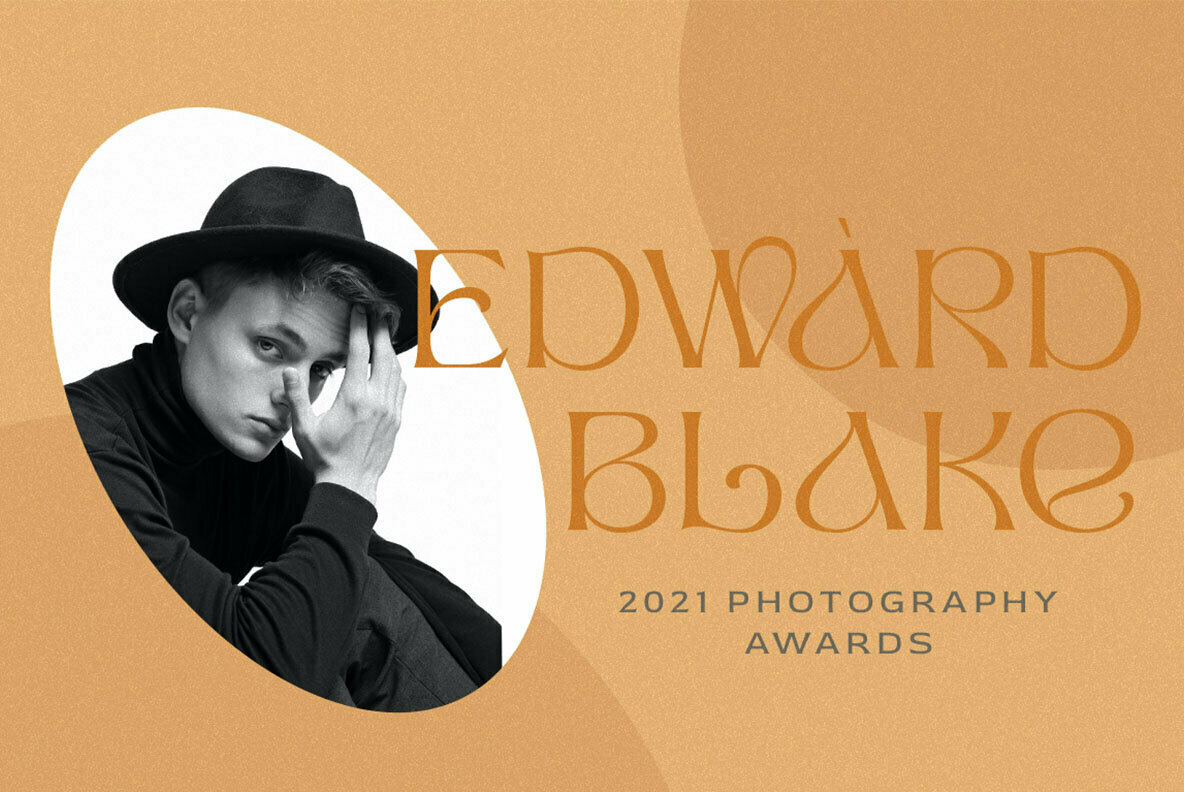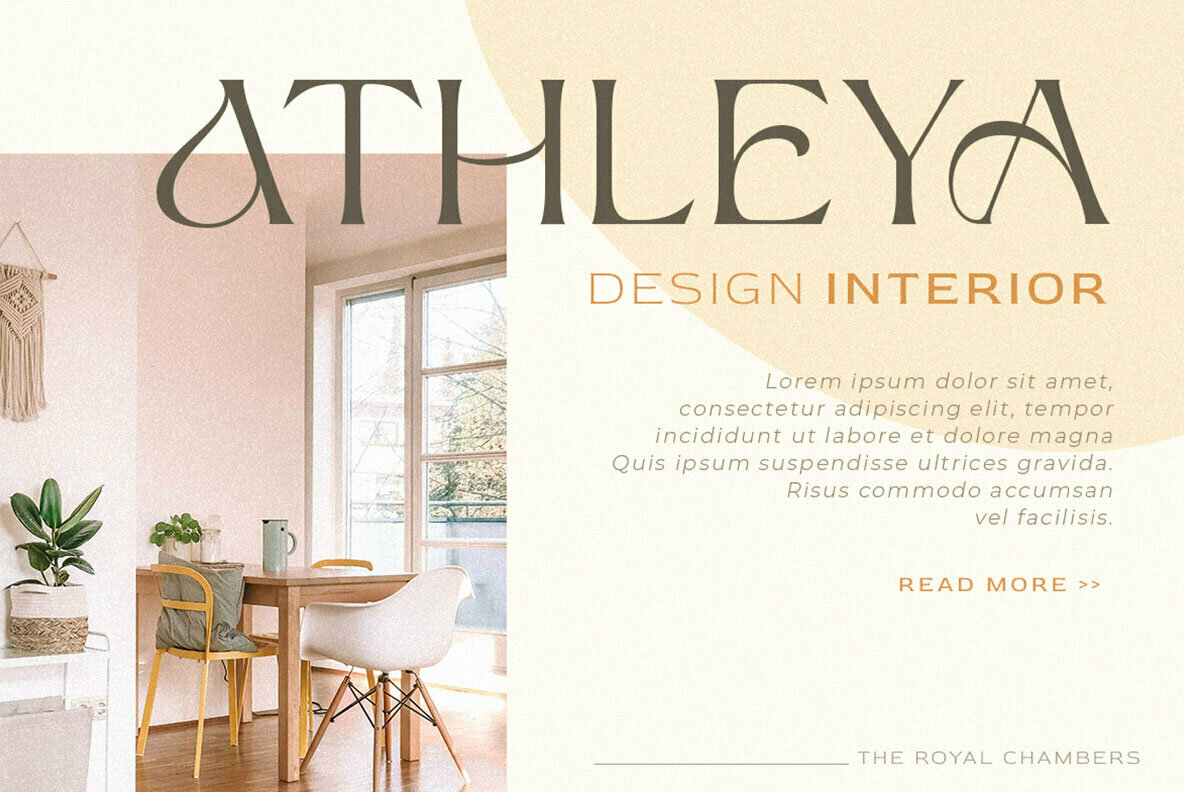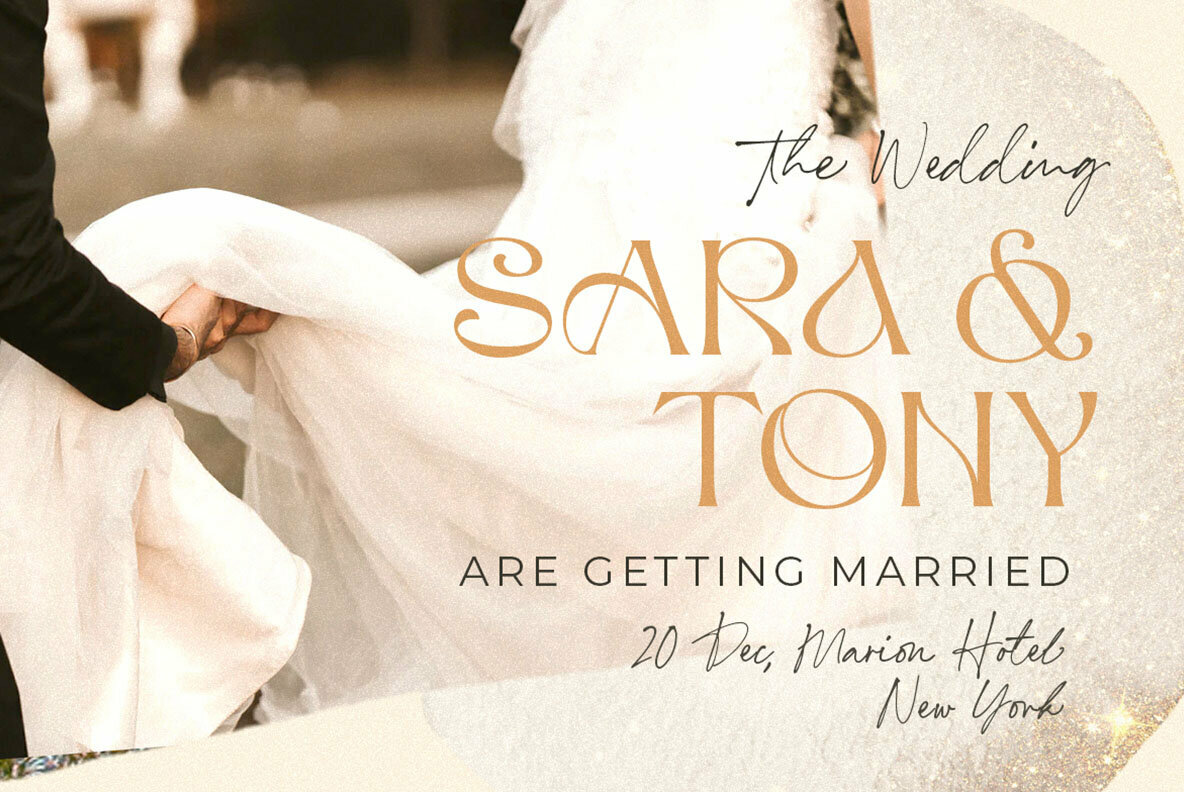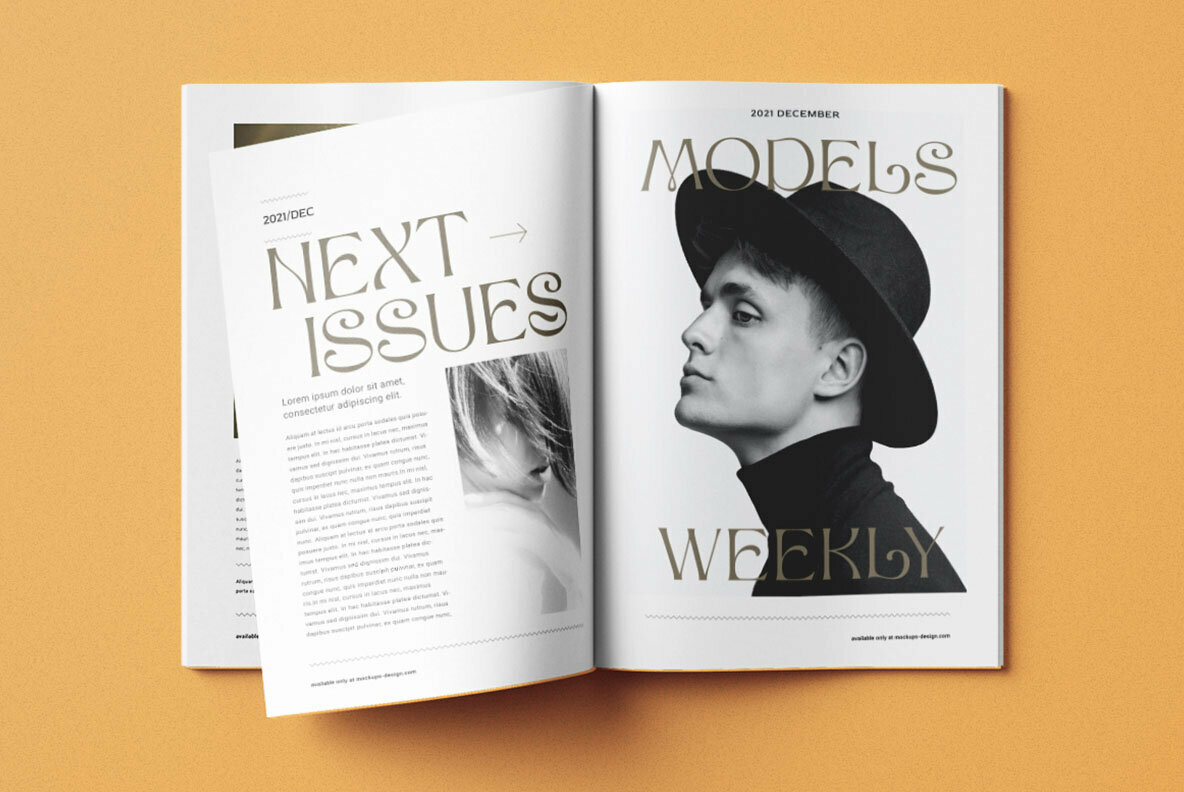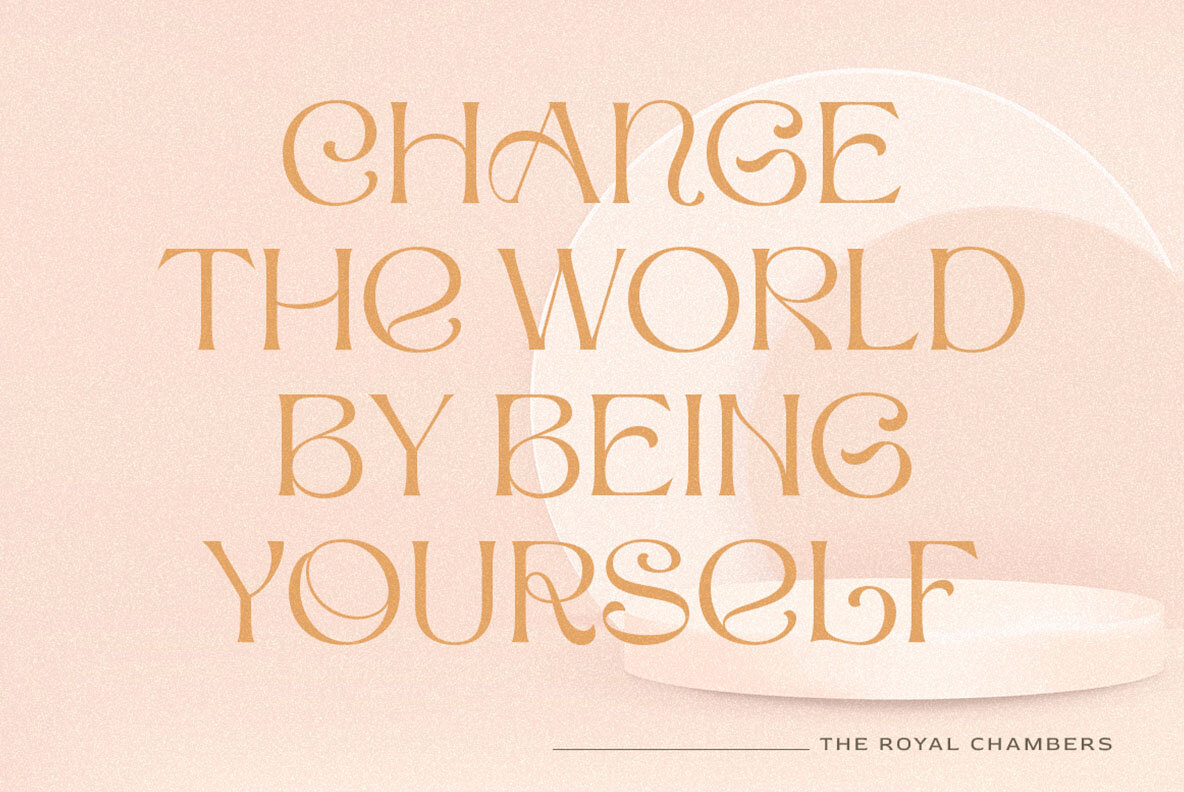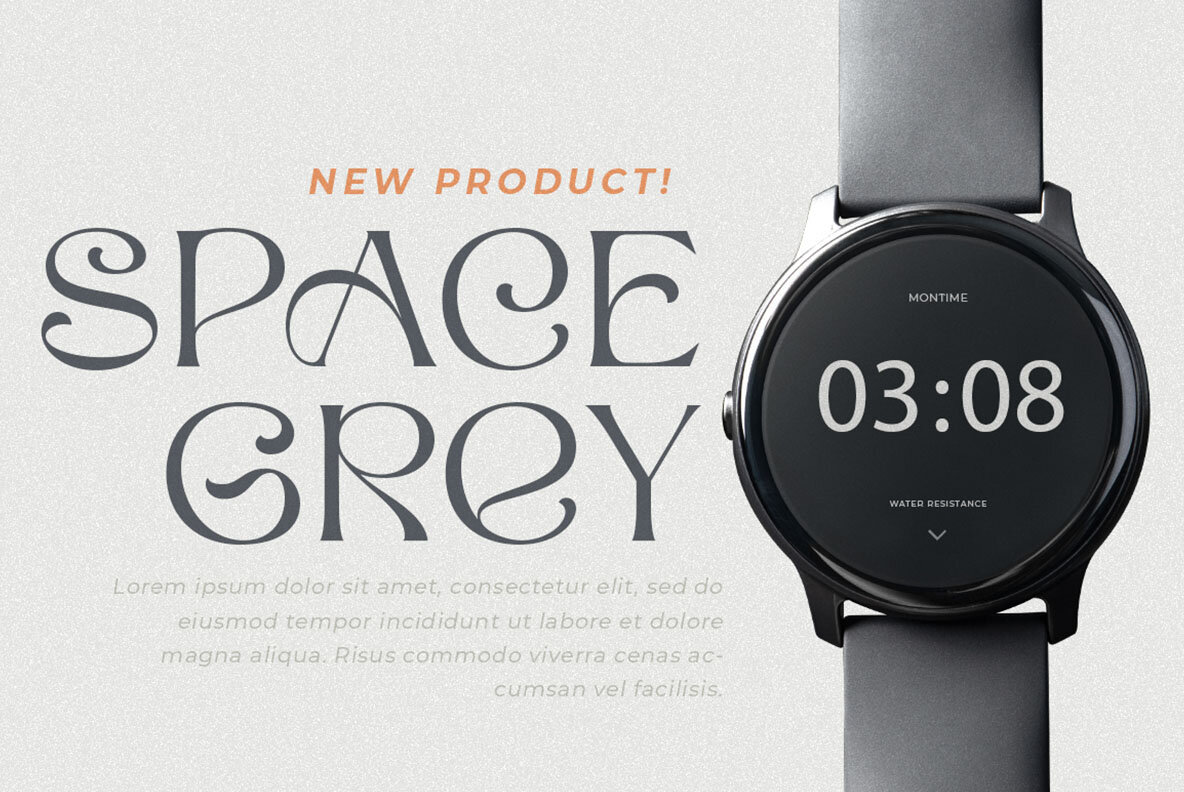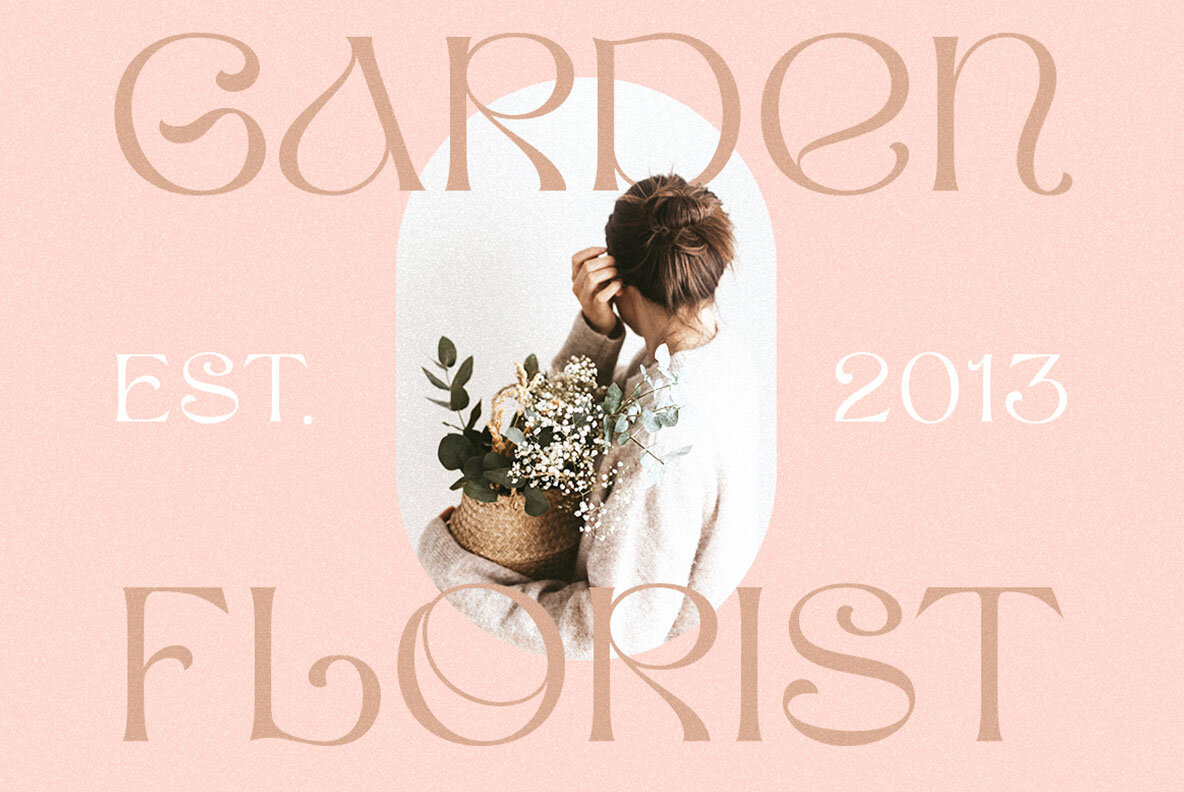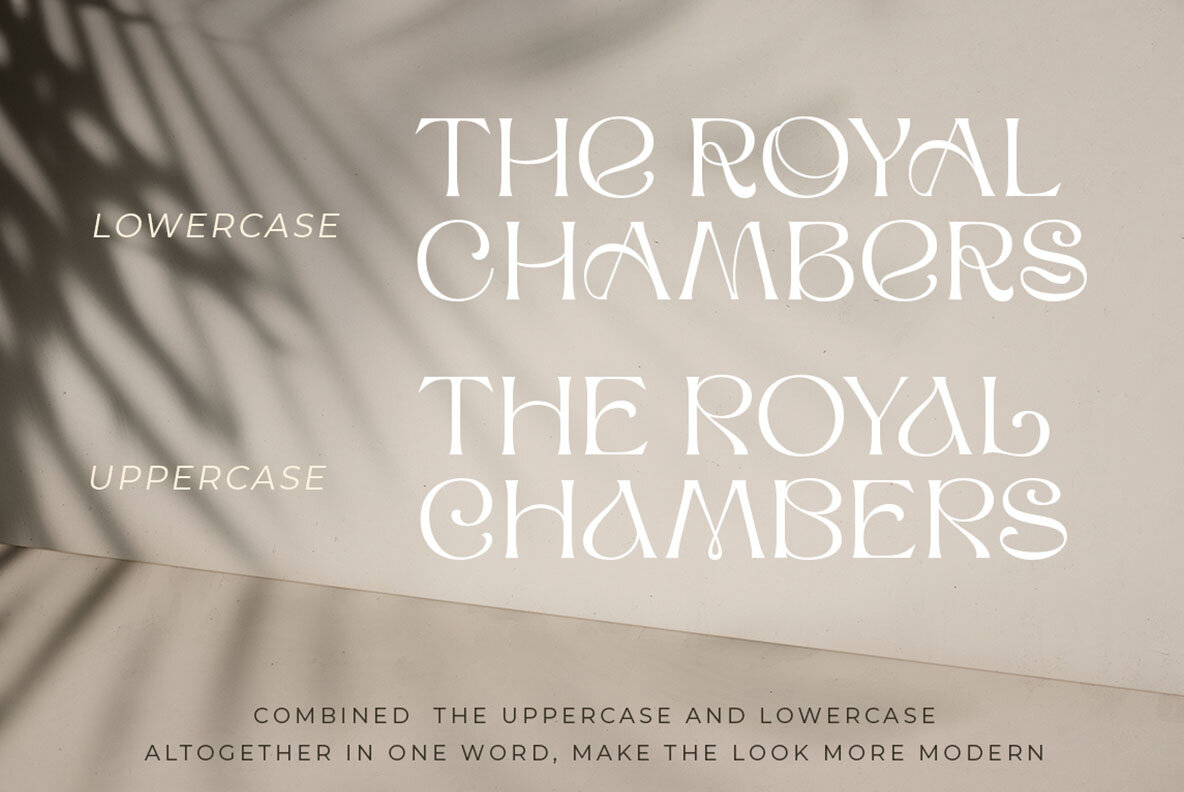
The Royal Chambers Font
The Royal Chambers Regular
The Royal Chambers is a distinguished serif typeface that embodies elegance and refinement, elevating it above standard serif fonts. Crafted with meticulous attention, its unique letterforms evoke a sense of luxury and exclusivity. Ideal for logos, headlines, titles, and formal applications such as invitations, labels, and magazines. This typeface also shines in books, greeting and wedding cards, packaging, fashion, makeup, stationery, novels, and advertising endeavors.The Royal Chambers: A Sophisticated Display Serif